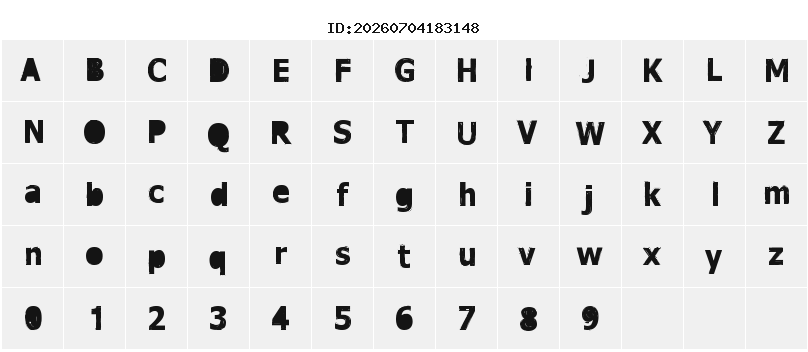
Dreamer Eternal Preview
About Dreamer Eternal.ttf
Dreamer Eternal.ttf is a modern, elegant sans-serif font designed for ultimate readability and visual harmony. Perfect for branding, headlines, web design, and print materials.